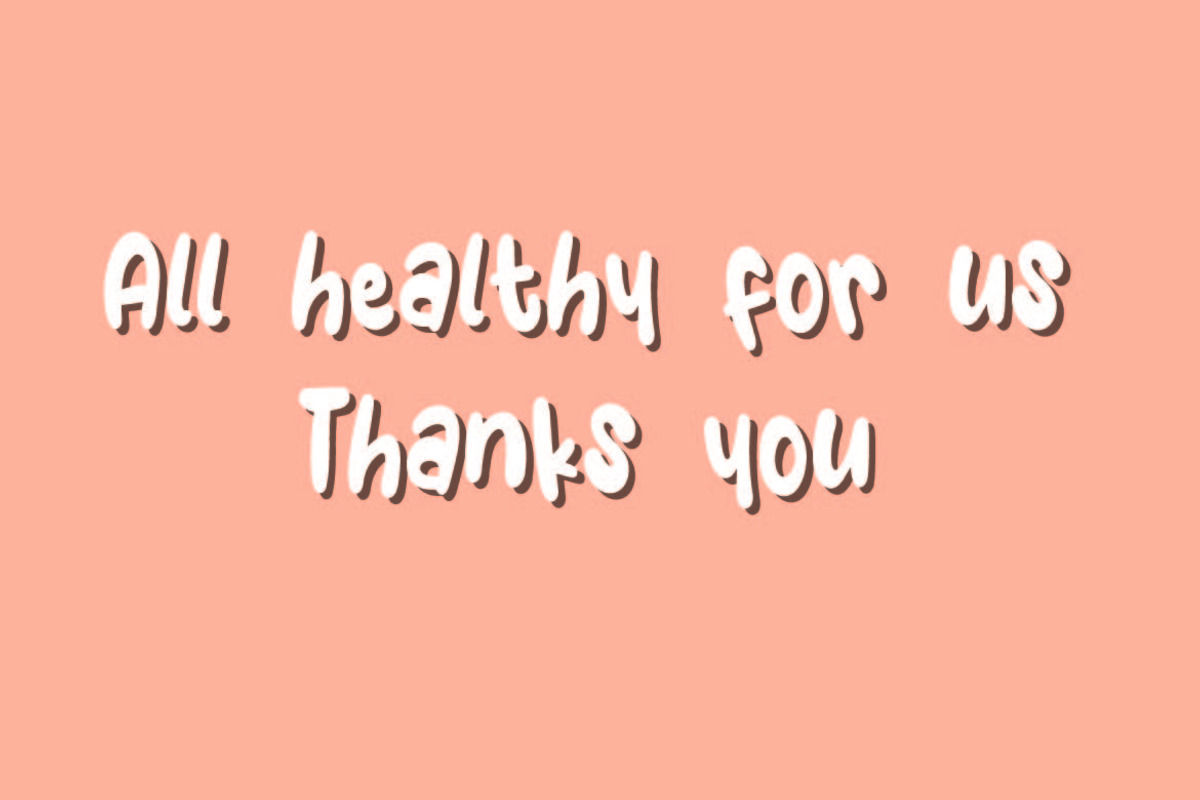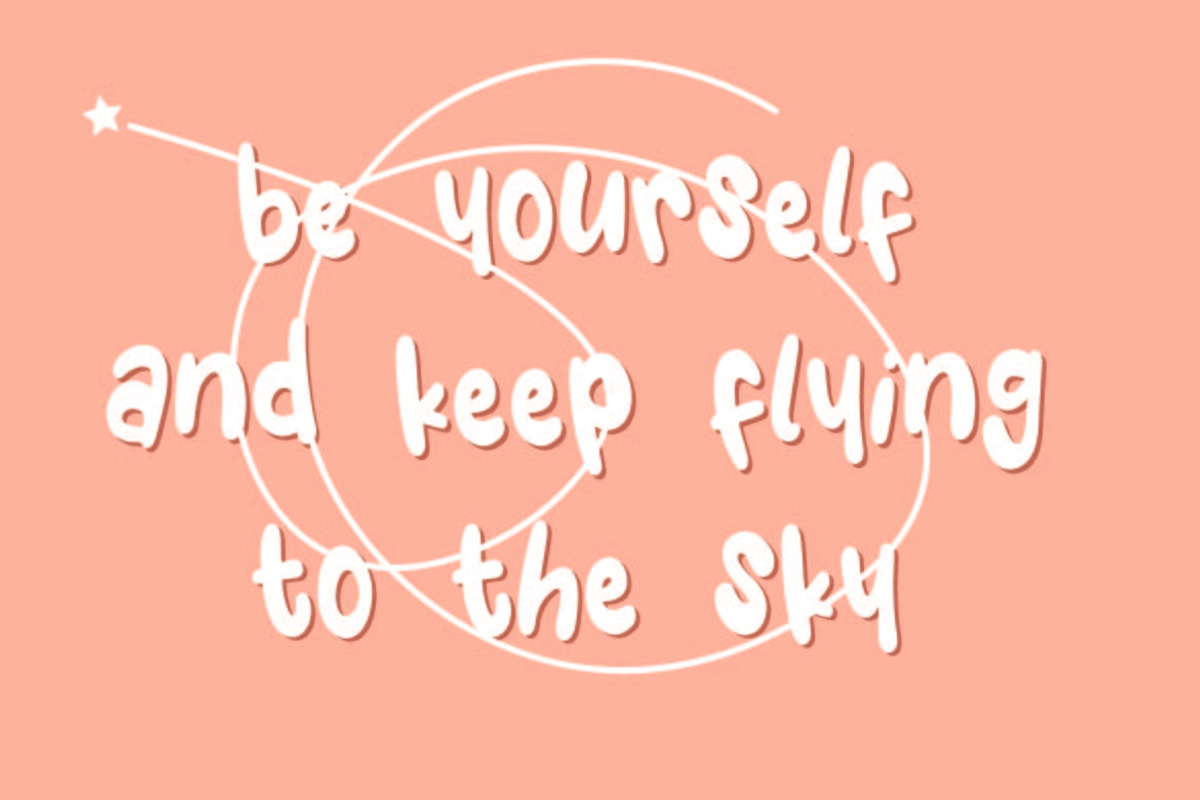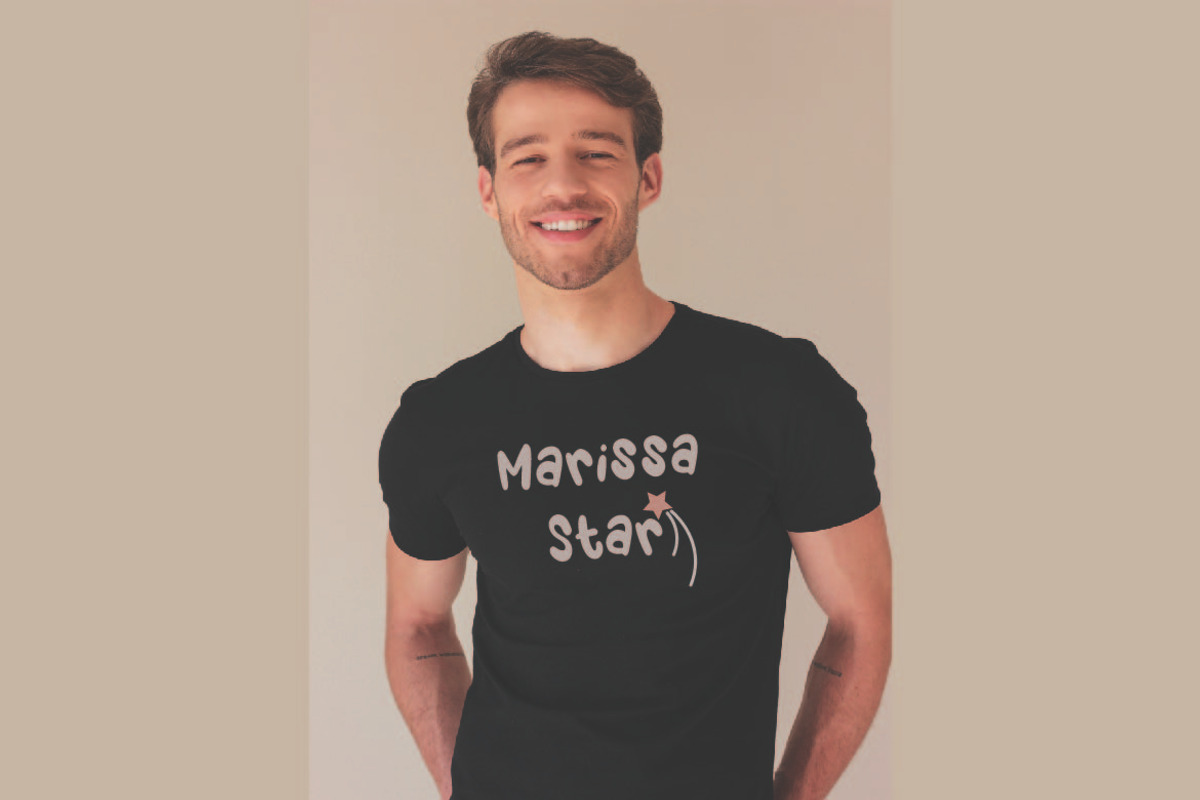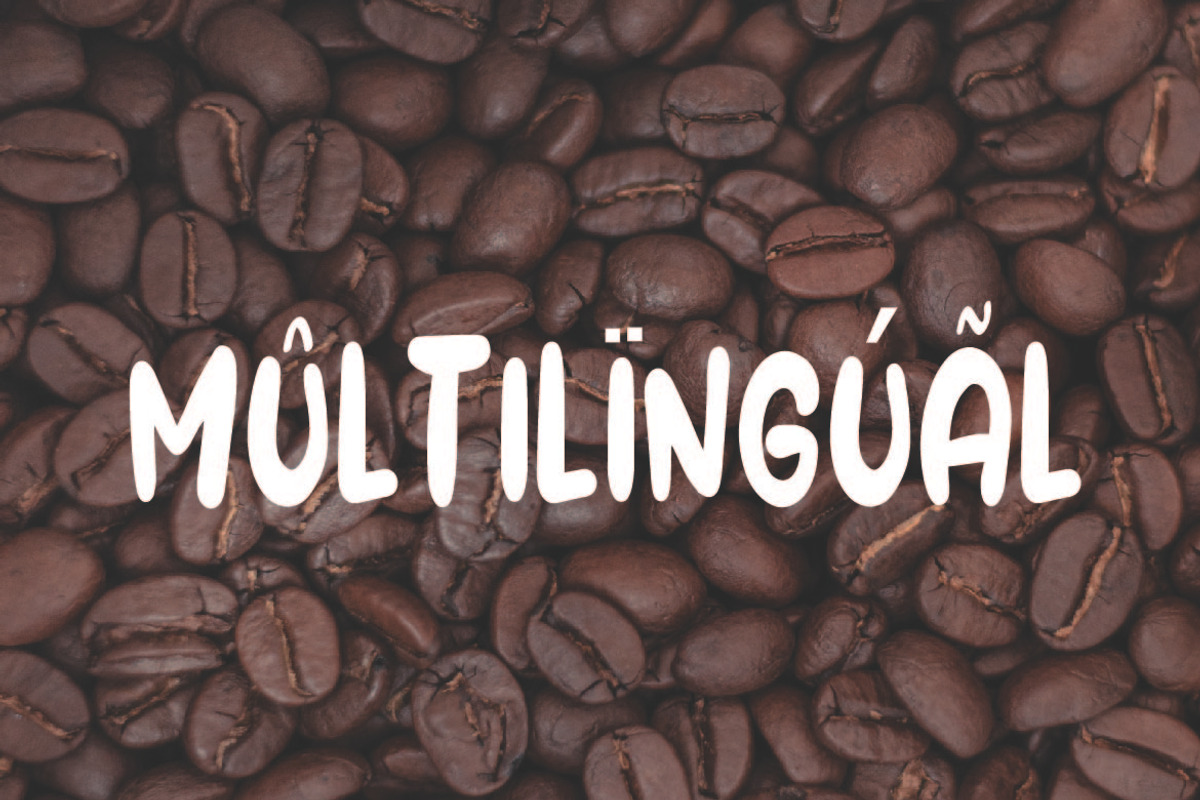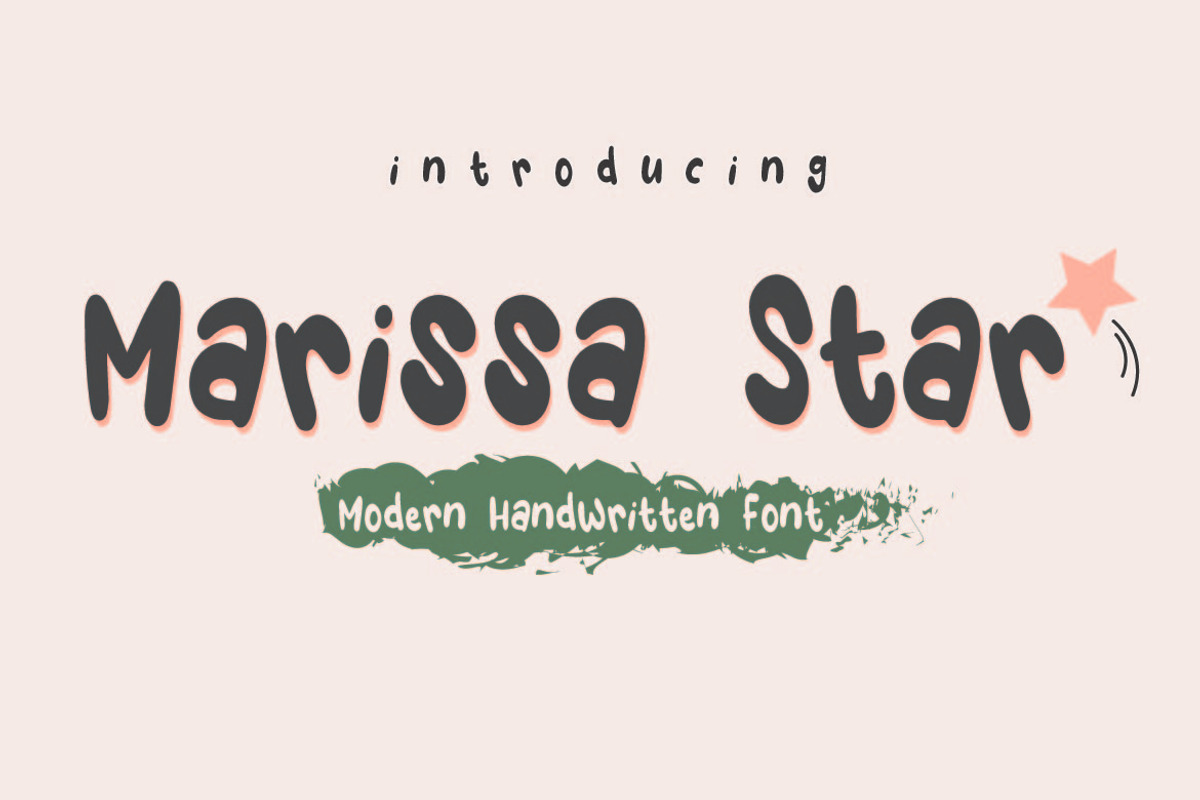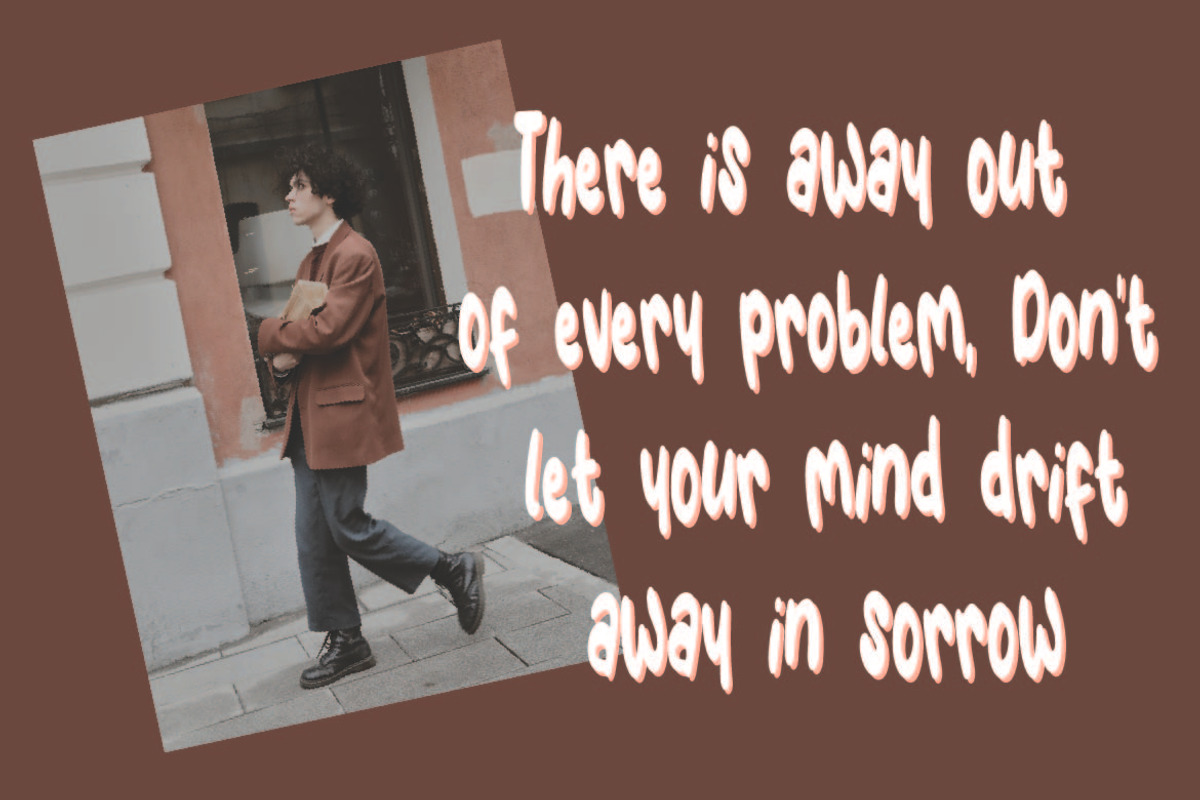
Marissa Star
Marissa Stars is a modern handwritten font, that feels equally charming and delicate. This font is PUA encoded which means you can access all of the glyps! This font perfect for Crafting, DIY, Silhouette, Cricut, apparel, Fashion and many more.